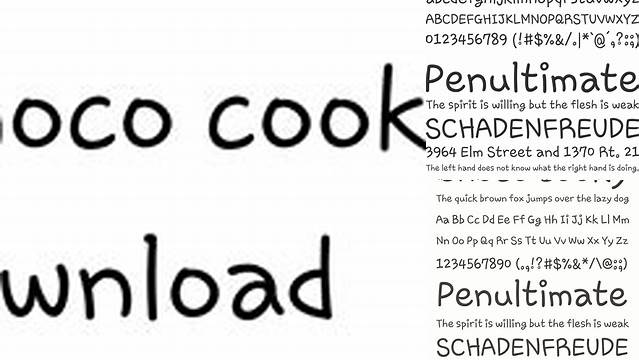
Hey everyone! Ever scrolled through your Samsung phone and noticed those super cute, playful fonts that just make your texts pop? If you're a fan of the Choco Cooky font and want to bring that delightful aesthetic to your own device, you're in the right place! We're diving deep into how you can get this awesome font for your Samsung phone, completely free. Let's get this Choco Cooky party started!
Understanding the Appeal of Choco Cooky Font for Samsung
The Choco Cooky font for Samsung isn't just another typeface; it's a whole vibe. Think of those adorable, slightly rounded letters with a touch of whimsy. It’s the kind of font that makes even a simple text message feel a little more personal and a lot more fun. Guys, if you're tired of the standard, boring fonts that come pre-installed on your phone, Choco Cooky is your new best friend. It brings a sense of playfulness and personality to your entire user interface, from your contacts list to your messaging apps. It's like giving your phone a cute makeover without spending a dime! The rounded edges give it a soft, friendly appearance, making it super easy to read while still being incredibly charming. Whether you're typing out a long email, sending a quick text to your bestie, or even just navigating your phone's settings, this font adds a little spark. It’s especially popular among users who want their digital communication to reflect their own unique style and personality. Plus, let's be honest, sometimes a font just makes things nicer. And Choco Cooky definitely falls into that category. It’s a small change that can make a big difference in your daily phone usage, turning mundane tasks into slightly more enjoyable ones. The versatility of this font is also a key factor in its popularity. It looks great in various contexts, from bold headlines to smaller body text, ensuring a consistent and aesthetically pleasing experience across your device. So, if you're looking to inject some personality and fun into your Samsung device, the Choco Cooky font is definitely a top contender. It’s all about making your phone feel more you, and this font does a fantastic job of that.
Optimizing Your Samsung Device with the Choco Cooky Font Style
Once you’ve successfully installed the Choco Cooky font on Samsung, it’s time to really soak in the new look and feel of your device. This isn't just about changing a font; it's about optimizing your entire user experience. Think about how the Choco Cooky font's playful yet readable nature enhances different apps. Messages will feel friendlier, your notes will have more personality, and even system menus might seem less intimidating. To truly optimize, consider where this font shines brightest. It’s fantastic for social media apps, messaging platforms, and personal note-taking. For more formal work environments, you might want to stick to a more standard font, but for everyday personal use, Choco Cooky is a winner. Experiment with different apps and see how it transforms your interactions. Maybe you'll find that reading articles on your phone is more enjoyable, or that composing emails feels a bit more creative. The key is to integrate it naturally into your workflow. Don't be afraid to switch back if a particular app or task feels awkward with the Choco Cooky font; that’s the beauty of having customization options! But for most casual users, this font adds a delightful touch that makes your Samsung device feel uniquely yours. It’s about personalization at its finest, making technology feel less like a tool and more like an extension of your personality. So go ahead, guys, enjoy the enhanced aesthetic and the subtle joy that a fun font can bring to your digital life.
Discovering Similar Playful Fonts for Your Samsung
While the Choco Cooky font for Samsung is undeniably charming, the world of fonts is vast and exciting! If you find yourself loving the playful vibe of Choco Cooky, you'll be thrilled to know there are tons of other fonts that offer a similar feel. Think rounded, soft, perhaps slightly quirky characters that bring personality to your screen. Many font providers offer collections of